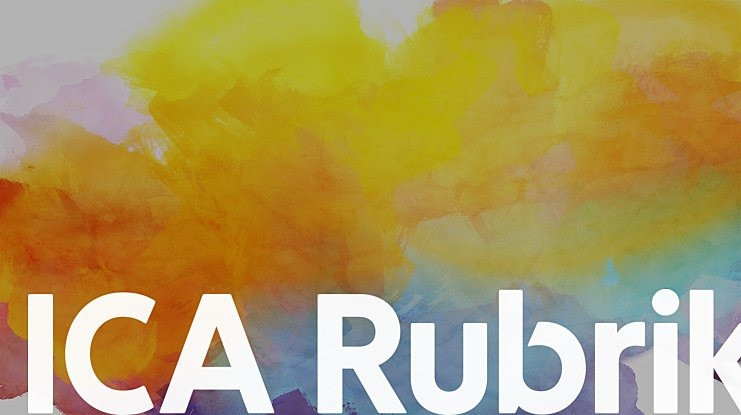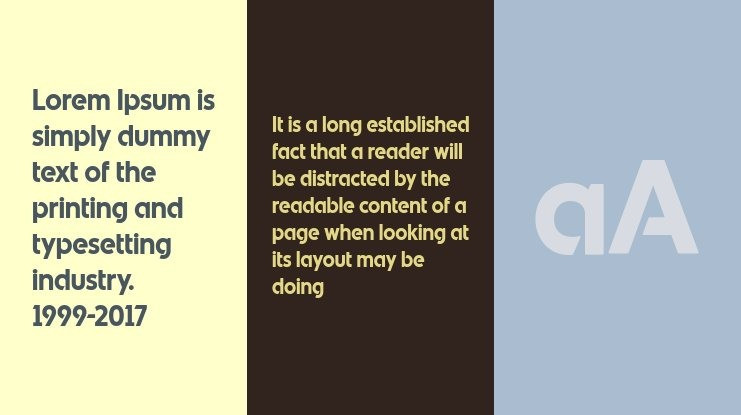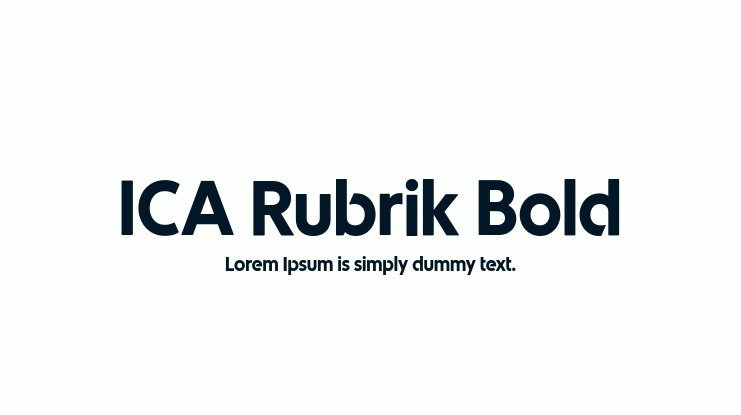
ICA Rubrik Bold Font
ICA Rubrik Bold Sans Serif Font by FamiljenPangea , this font was created for all forms of business and branding such as clothing, logos, skate boards and others according to your needs.